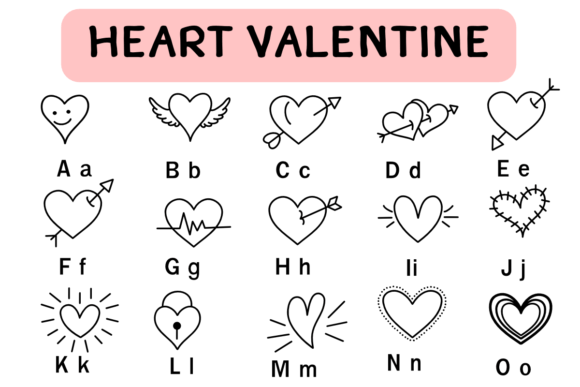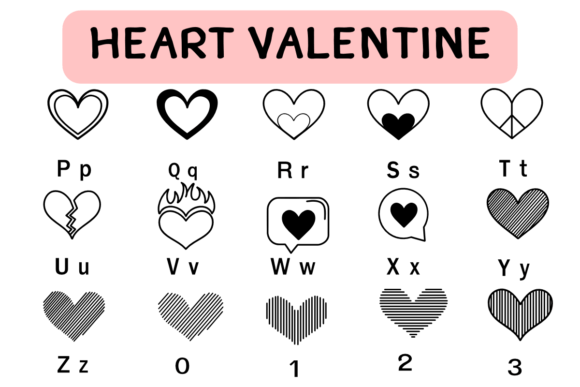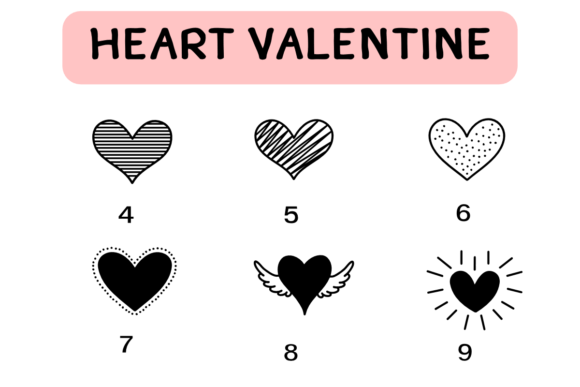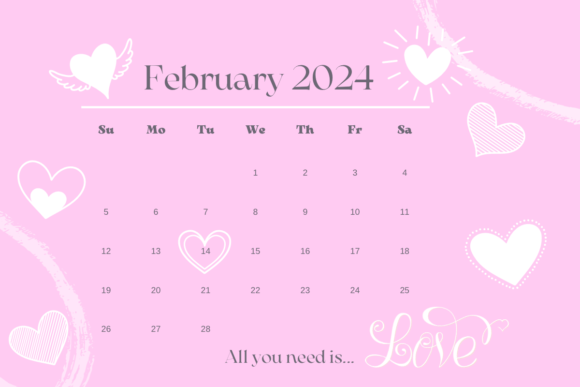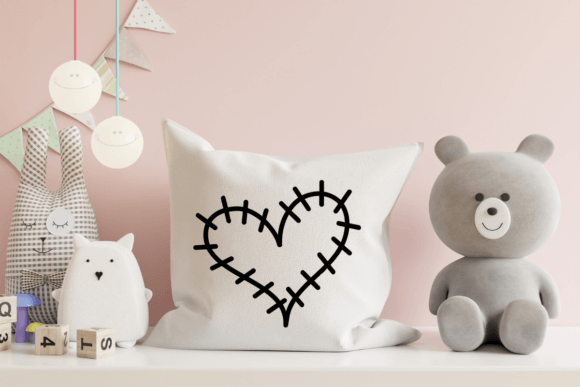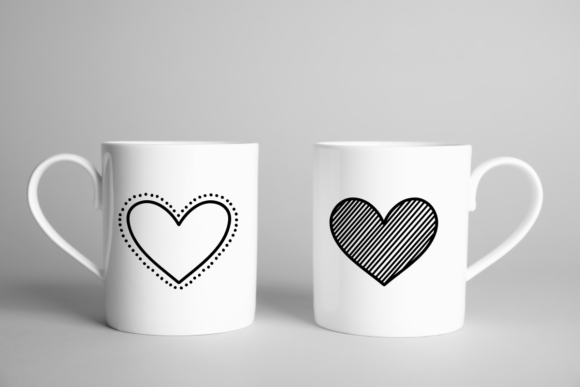
Introducing Heart Valentine Font: The Perfect Addition to Your Creative Projects
Are you looking for a unique and creative way to add a touch of love and warmth to your projects? Look no further than the Heart Valentine Font, a beautiful dingbats font with a sketch style theme that’s perfect for a variety of creative endeavors. In this article, we’ll explore the features and benefits of this lovely font, and show you how it can enhance your wedding invitations, DIY projects, crafts, decorations, logos, and more.
What is Heart Valentine Font?
Heart Valentine Font is a dingbats font that features a charming sketch style theme, complete with adorable hearts, flowers, and other romantic designs. This font is perfect for anyone looking to add a touch of whimsy and personality to their projects. With its unique and hand-drawn look, Heart Valentine Font is sure to stand out and make your creations shine.
Features of Heart Valentine Font
- Sketch style theme: Heart Valentine Font features a beautiful sketch style theme that’s perfect for creating romantic and whimsical designs.
- Dingbats font: This font is a dingbats font, which means it’s made up of decorative symbols and characters rather than traditional letters and numbers.
- Unique and hand-drawn: Heart Valentine Font has a unique and hand-drawn look that’s sure to add a touch of personality to your projects.
- Perfect for romantic projects: With its heart and flower designs, Heart Valentine Font is perfect for romantic projects like wedding invitations, anniversaries, and Valentine’s Day cards.
Uses for Heart Valentine Font
Heart Valentine Font is incredibly versatile and can be used for a wide range of creative projects, including:
- Wedding invitations: Add a touch of romance and whimsy to your wedding invitations with Heart Valentine Font.
- DIY projects: Use Heart Valentine Font to add a personal touch to your DIY projects, such as homemade cards, gift tags, and decorations.
- Crafts: Heart Valentine Font is perfect for crafters who love to make handmade cards, scrapbook pages, and other paper crafts.
- Decorations: Use Heart Valentine Font to create beautiful decorations for your home or office, such as garlands, banners, and signs.
- Logos: Heart Valentine Font can even be used to create custom logos for your business or brand.
Tips for Using Heart Valentine Font
Here are a few tips for getting the most out of Heart Valentine Font:
- Experiment with different colors: Heart Valentine Font looks great in a variety of colors, so don’t be afraid to experiment and find the perfect hue for your project.
- Mix and match with other fonts: Heart Valentine Font pairs well with a variety of other fonts, so try mixing and matching it with your favorite fonts to create a unique look.
- Use it sparingly: While Heart Valentine Font is beautiful, it can be overwhelming if used too much. Try using it sparingly to add a touch of elegance and whimsy to your project.
Heart Valentine Font is a beautiful and versatile dingbats font that’s perfect for adding a touch of love and warmth to your creative projects. With its unique sketch style theme and adorable heart and flower designs, this font is sure to make your projects stand out. Whether you’re a designer, crafter, or DIY enthusiast, Heart Valentine Font is a great addition to your font collection.